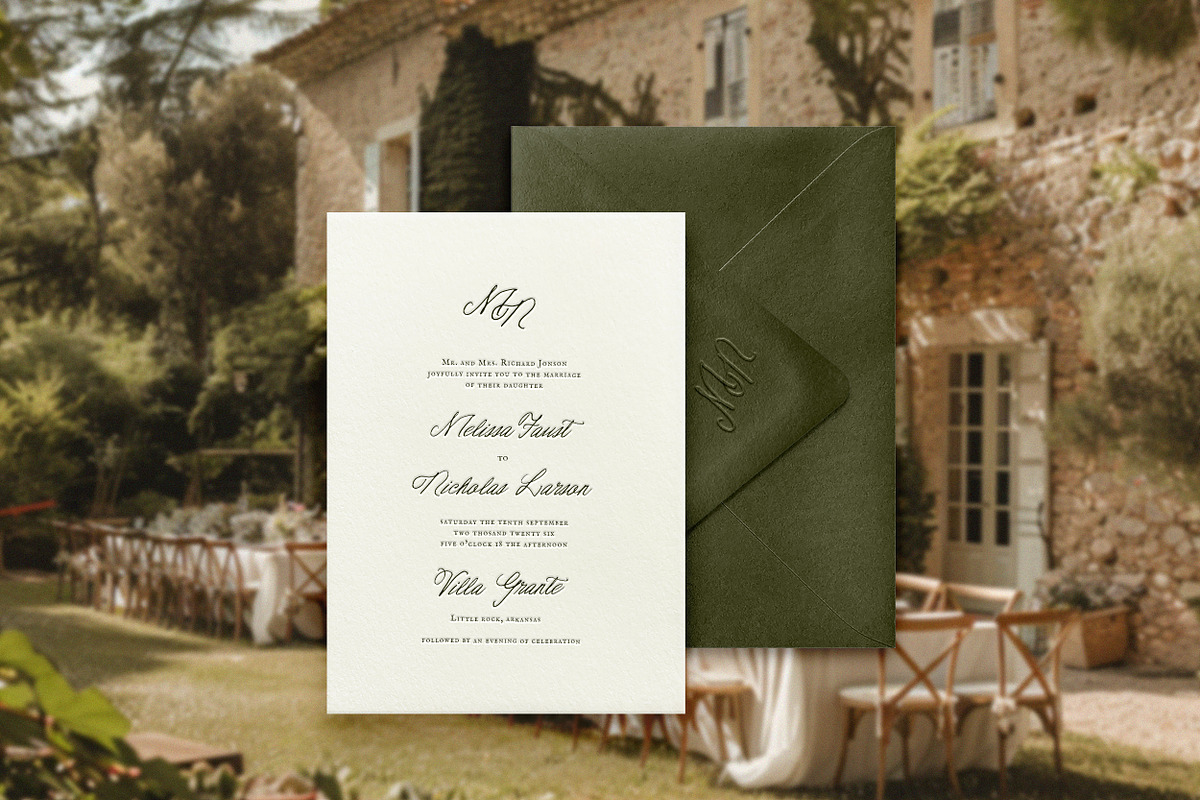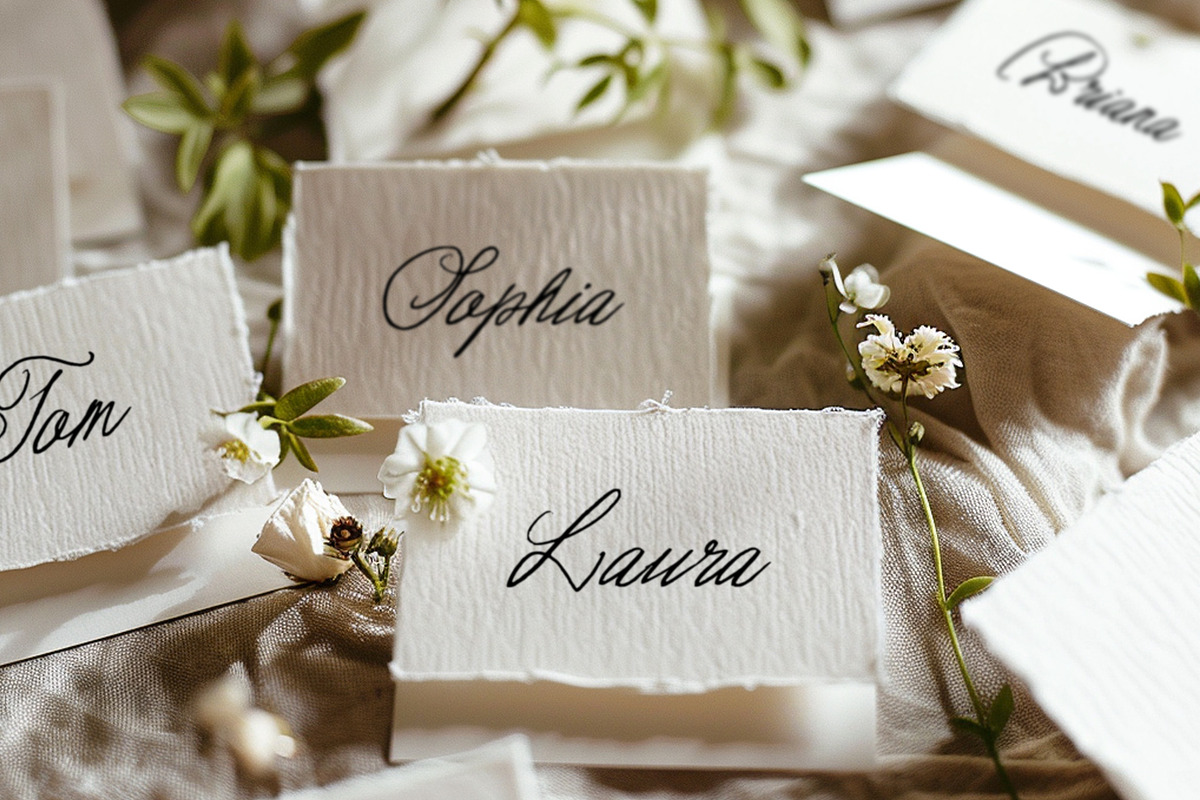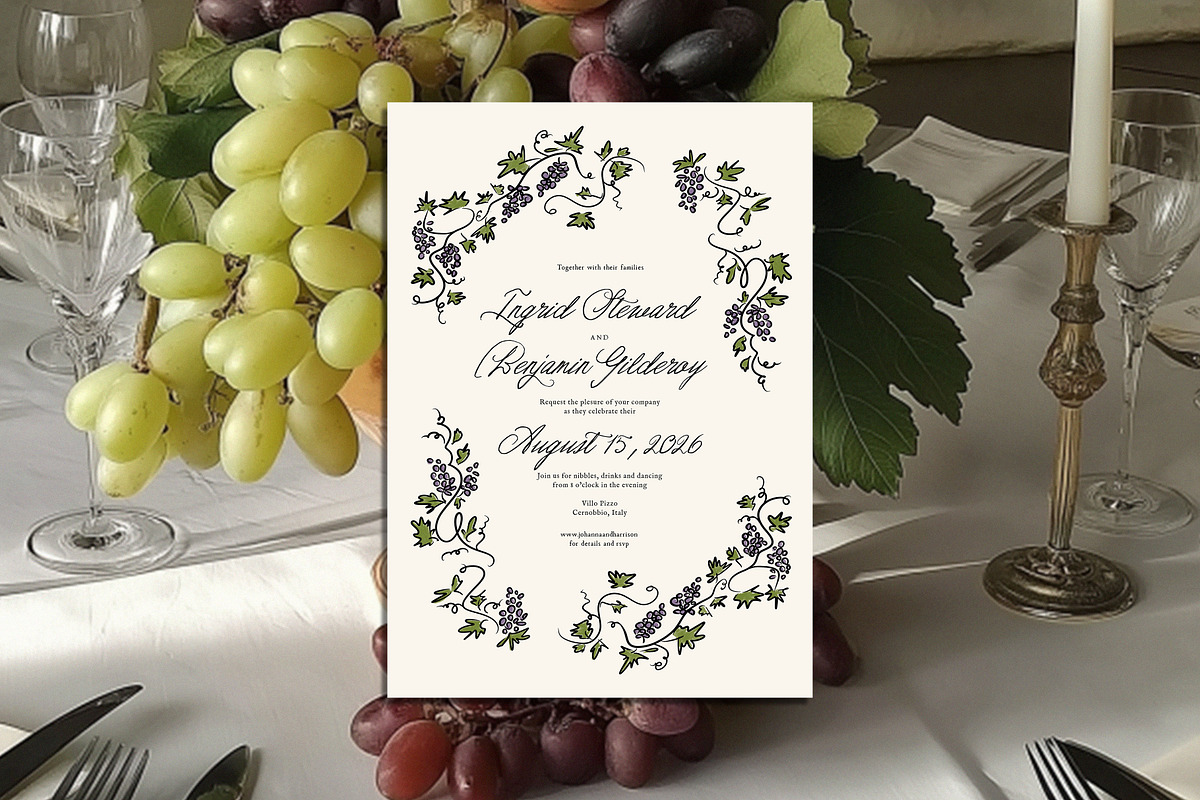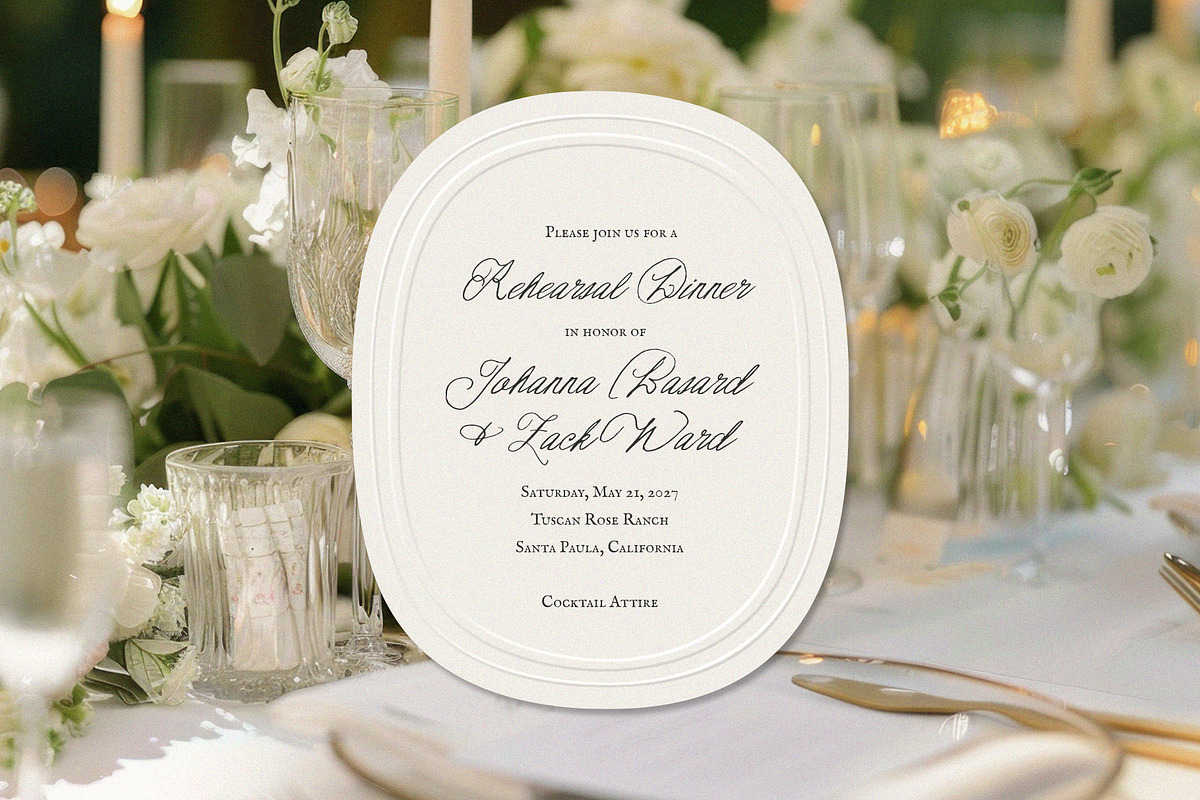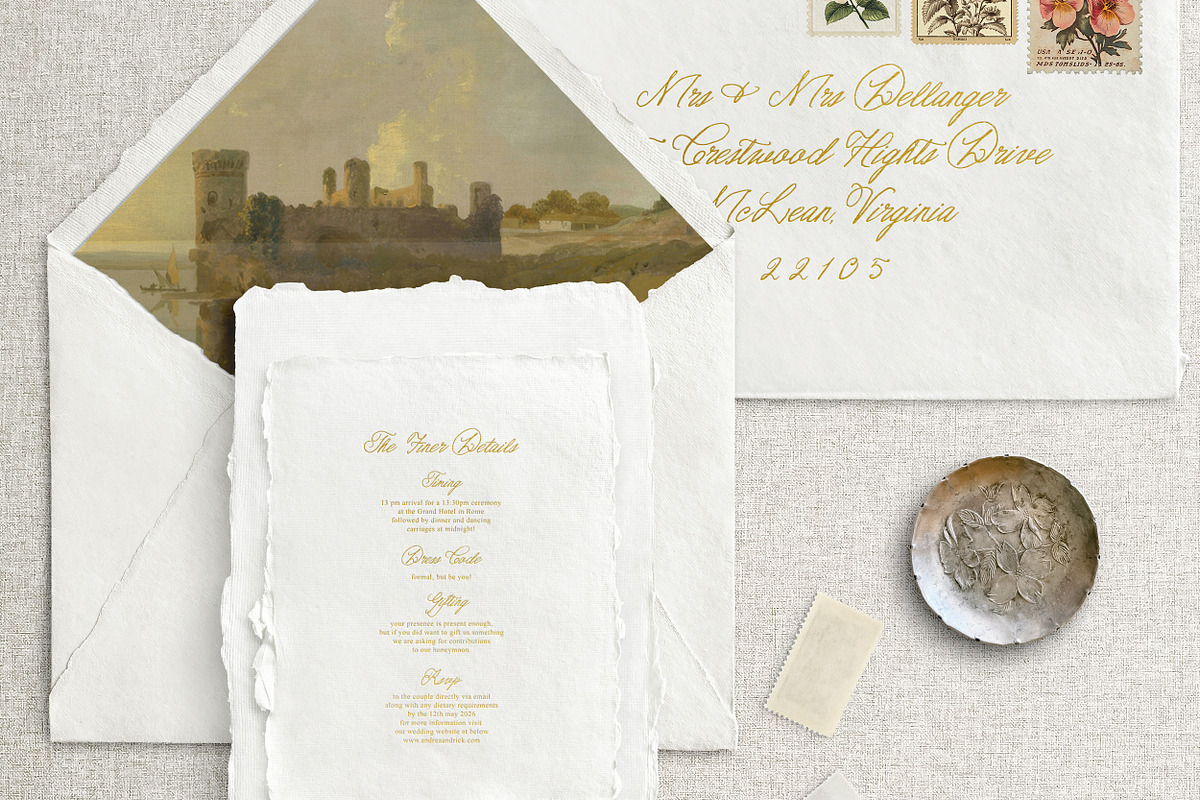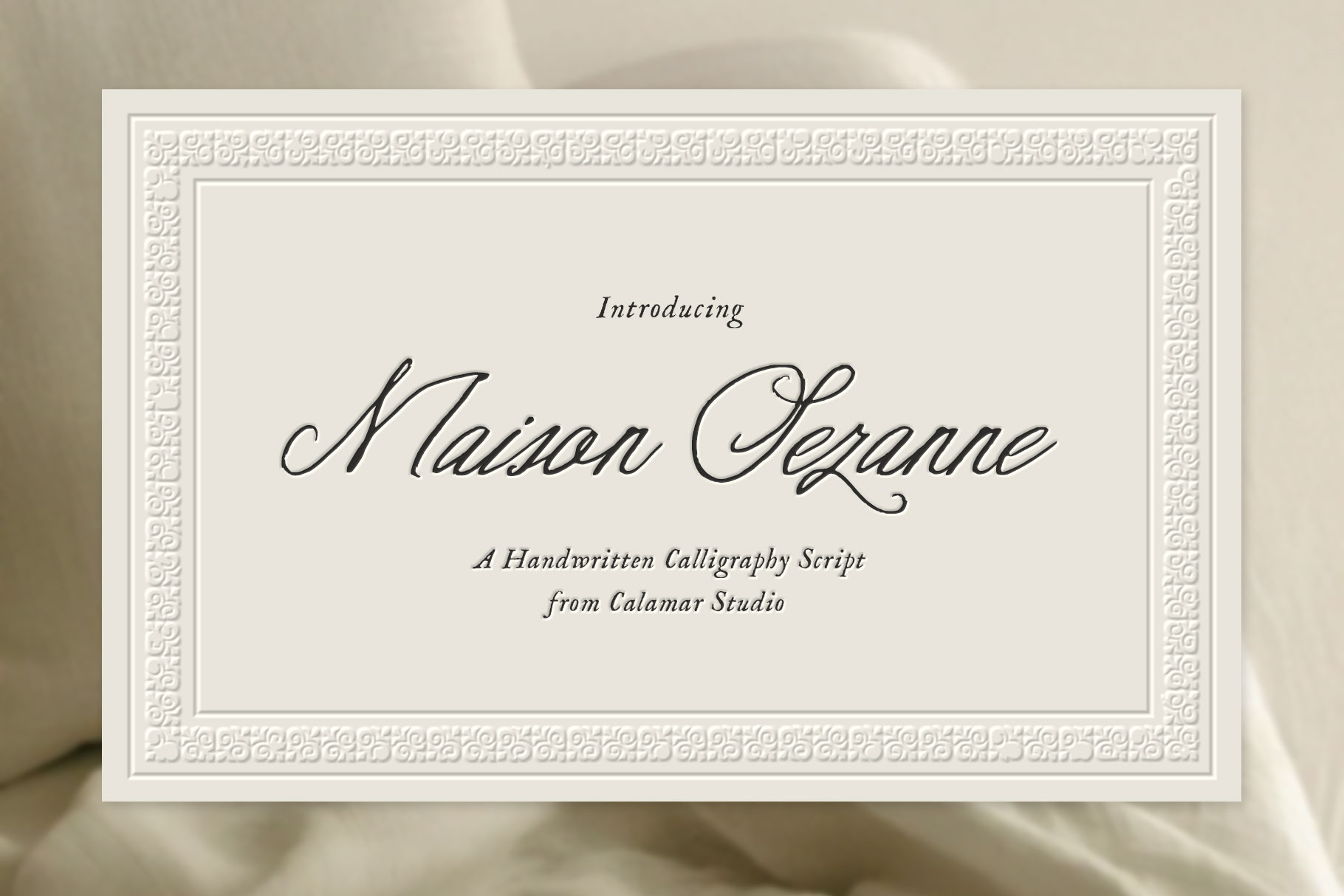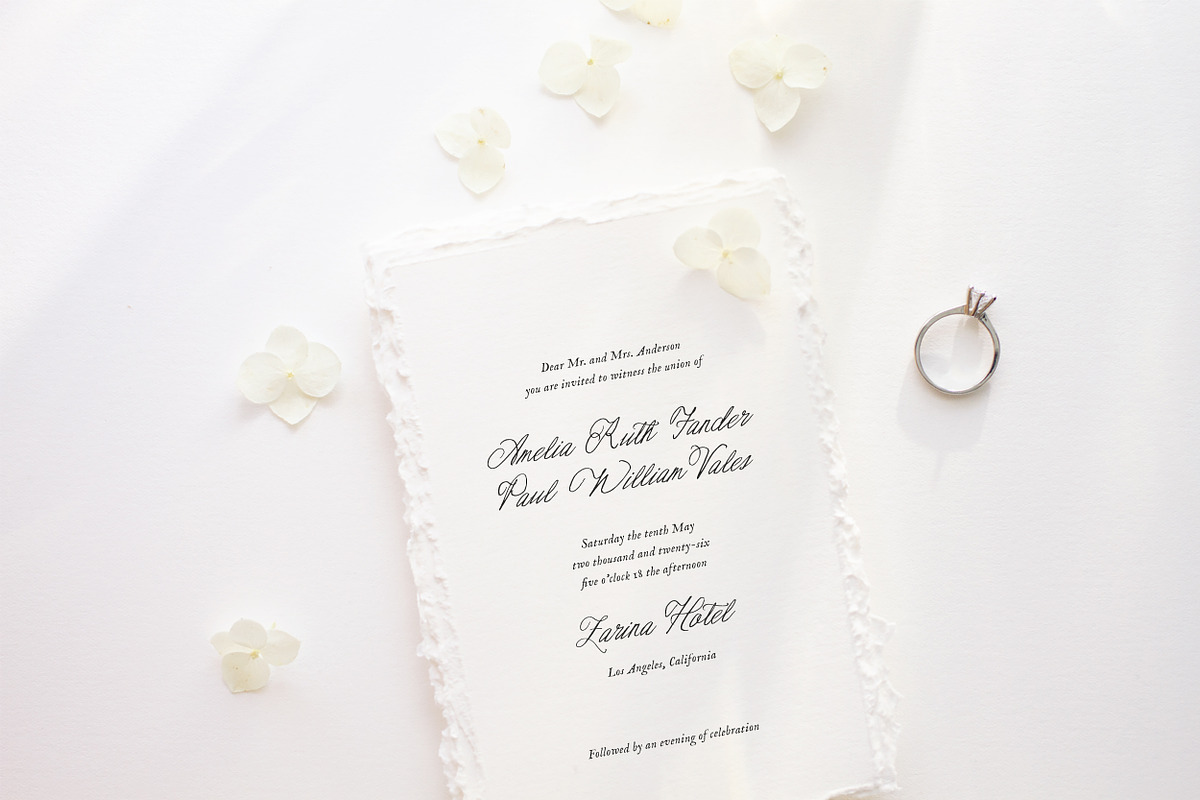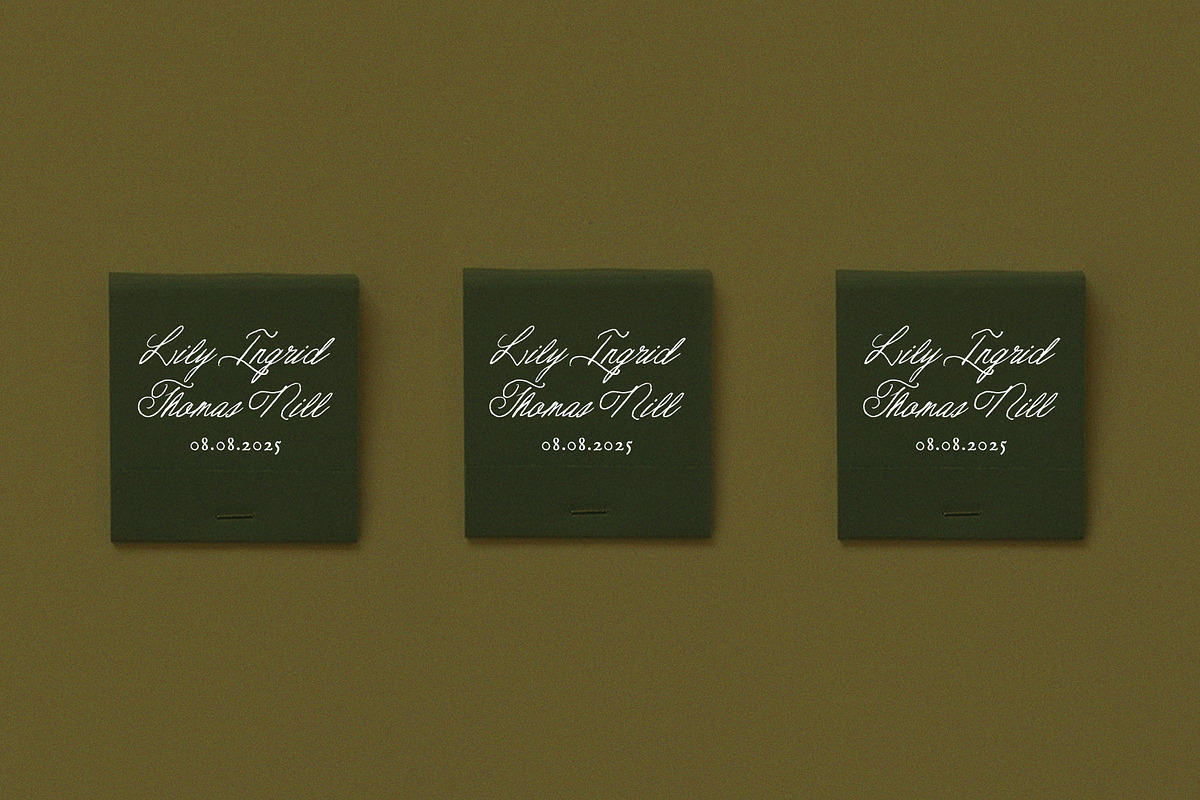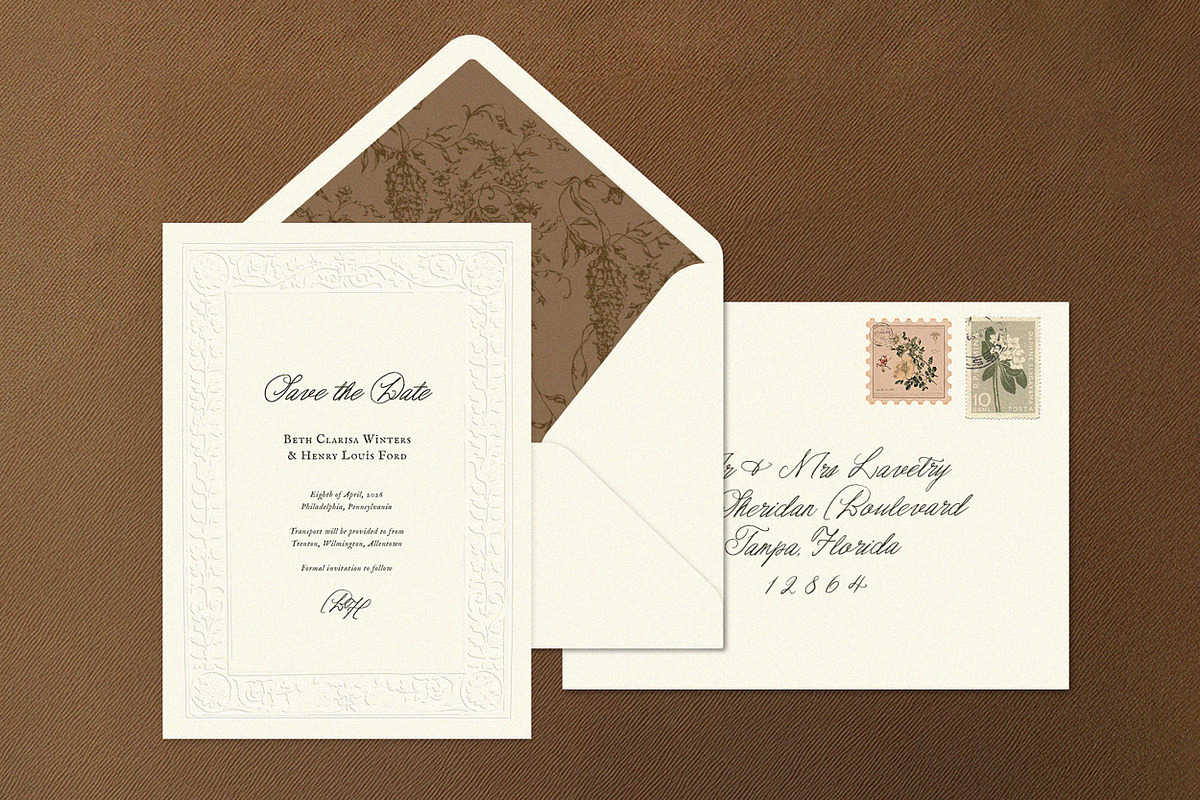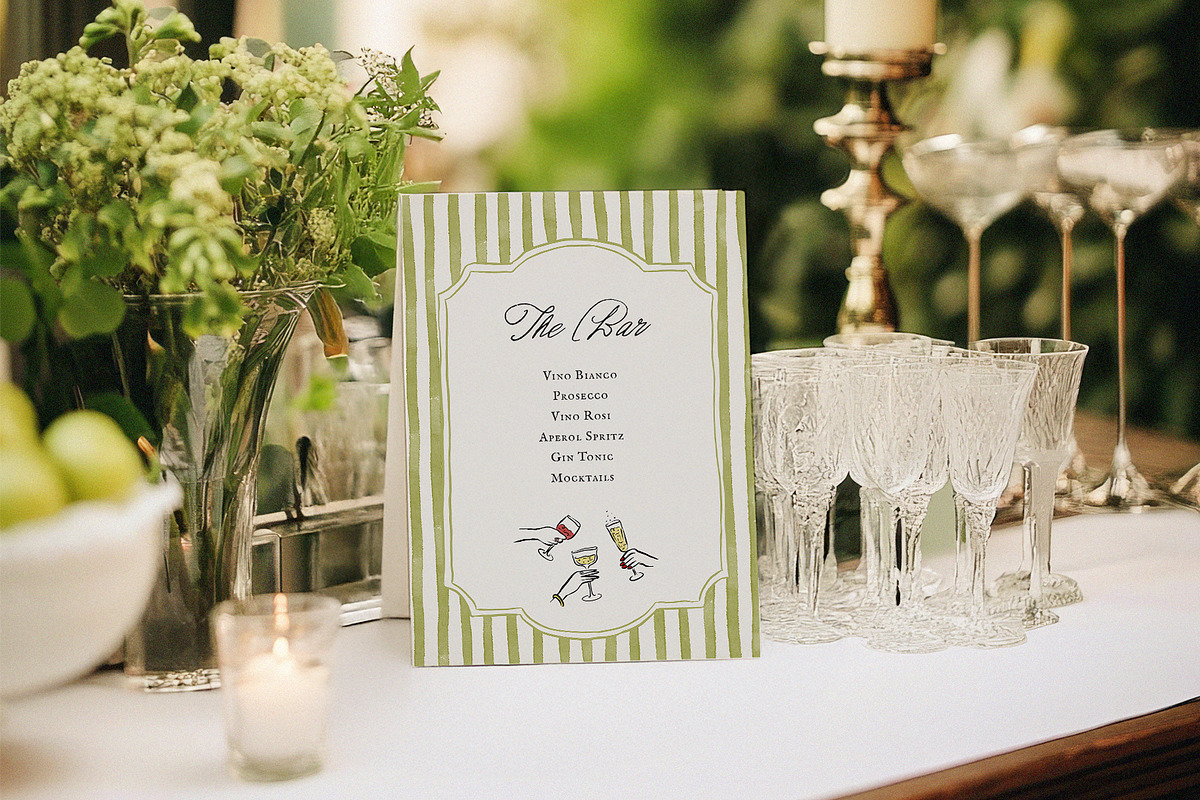
Maison Sezanne | Handwritten Font
This elegant handwritten script font is inspired by refined calligraphy and timeless European aesthetics. With its flowing strokes, delicate curves, and natural rhythm, it brings a sense of warmth, sophistication, and authenticity to any design.
Perfectly balancing grace and readability, this font works beautifully for both short phrases and expressive headlines. Its organic handwritten feel makes it ideal for projects that require a personal yet luxurious touch.
• Wedding stationery & menus
• Editorial design
• Branding & logos
• Restaurant menus
• Invitations & greeting cards
• Fashion, beauty & lifestyle projects
This script font pairs effortlessly with clean serif or minimalist sans-serif fonts, making it a versatile choice for modern, elegant layouts.
Add a touch of timeless charm and handwritten elegance to your designs.